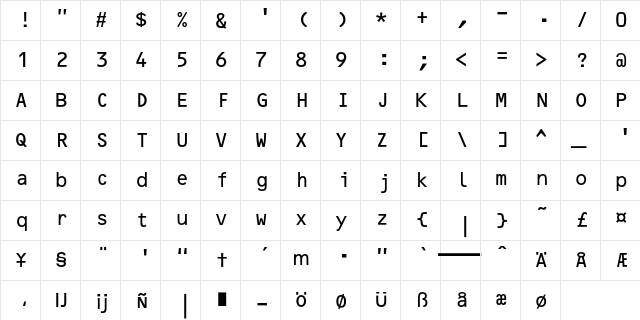
OCR-B 10 Pitch Regular
Design Context for OCR-B 10 Pitch Typeface
OCR-B 10 Pitch offers clean, dependable letterforms without strong stylistic allegiance, making it a practical choice for designers who need flexibility.
Pro Tip: Use OCR-B 10 Pitch in both headline and body roles to test its range before committing to a single application.